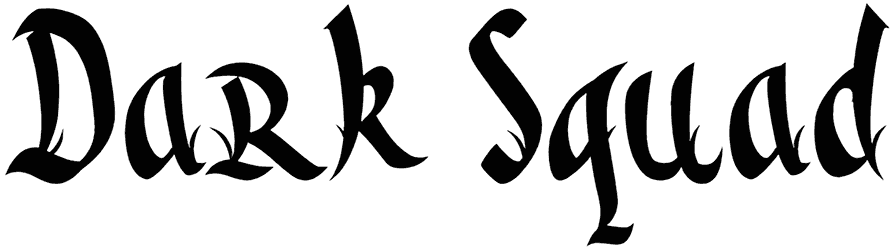
Dark Squad Font
Considering a joyful and high-quality vibe for context can be an incredible buildup for your planned design. As a black letter font with a medieval face, Dark Squad can successfully keep in touch with any audience.
With the traditional and loyal mood of this masterpiece, it wouldn’t be tough to create a remarkable design and get lots of love. It supports all letters to keep your design in the lead! Use it to create anything new to blow your customers’ minds!